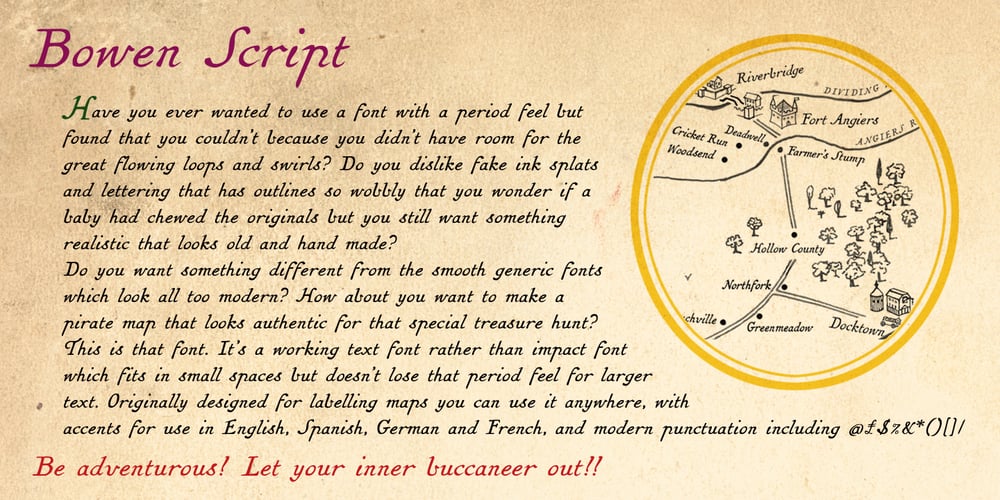
Bowen Script Font Family was designed by Andrew Ashton and published by Ashton. Bowen Script contains 1 styles and family package options. The font was inspired by the persistent demands of editors for scripts which actually looked like real handwriting, a lot of historical fiction projects and a love of maps. While making a map for a prequel to Treasure Island I decided to make a font from the lettering of some Caribbean maps of the period. The glyphs are all hand drawn vector outlines which although very legible and consistent in style carry the variation and irregularity you expect from handwriting. This font has been featured on maps for books by authors such as Peter V. Brett, Mark Lawrence and Michael Crichton.